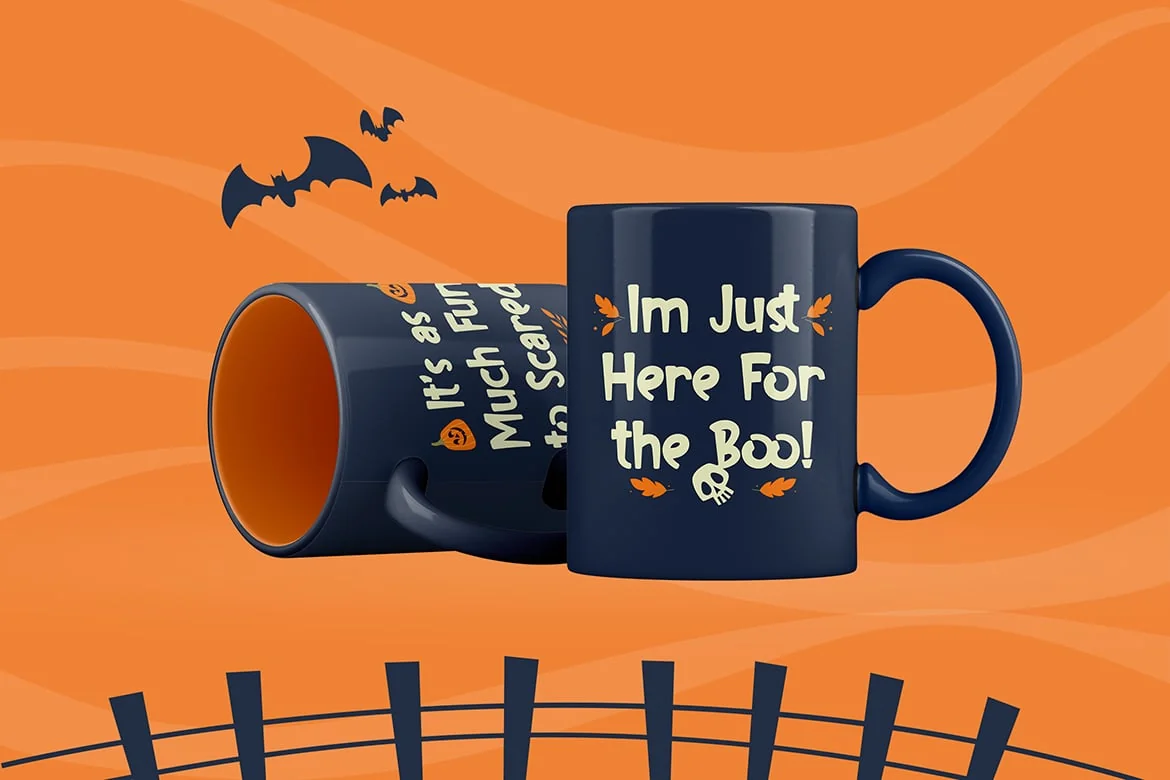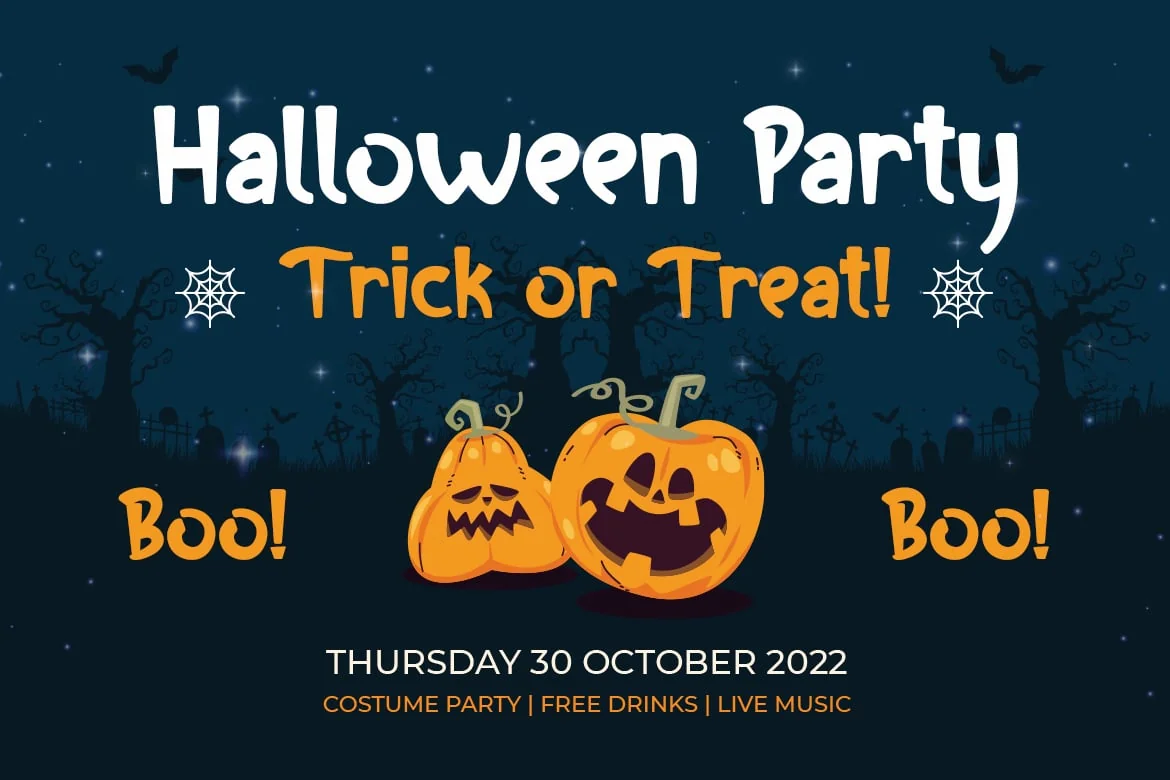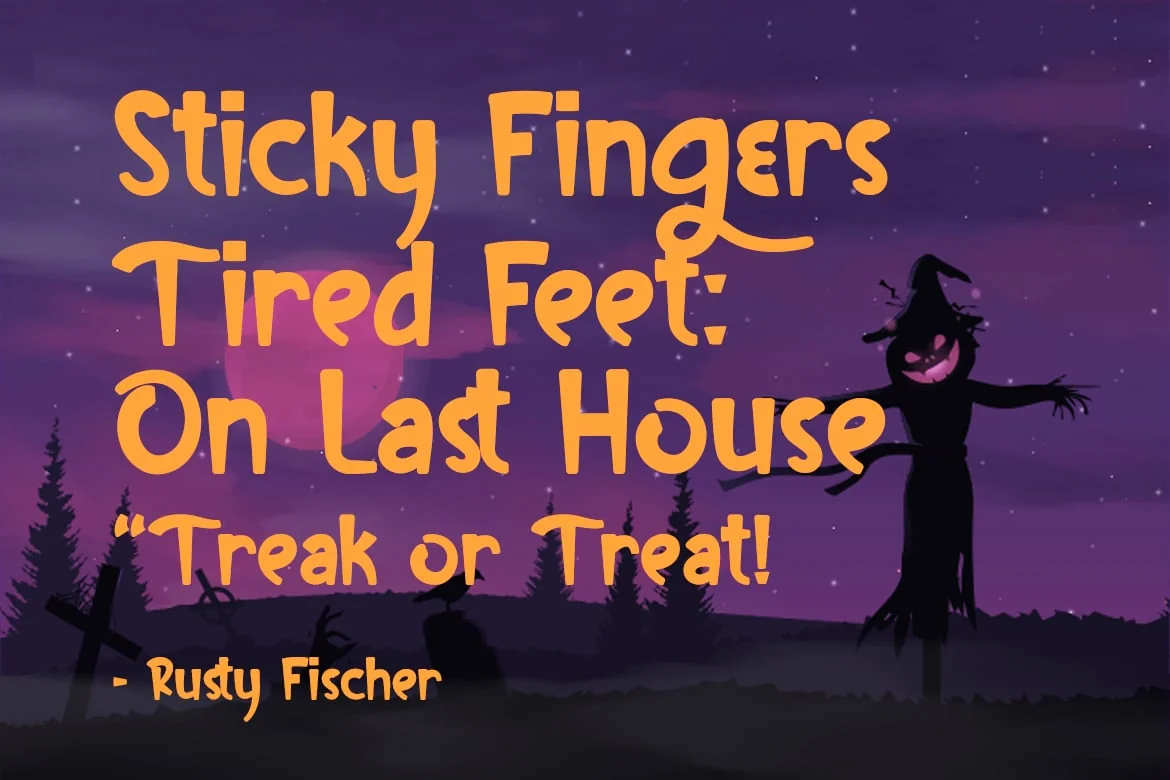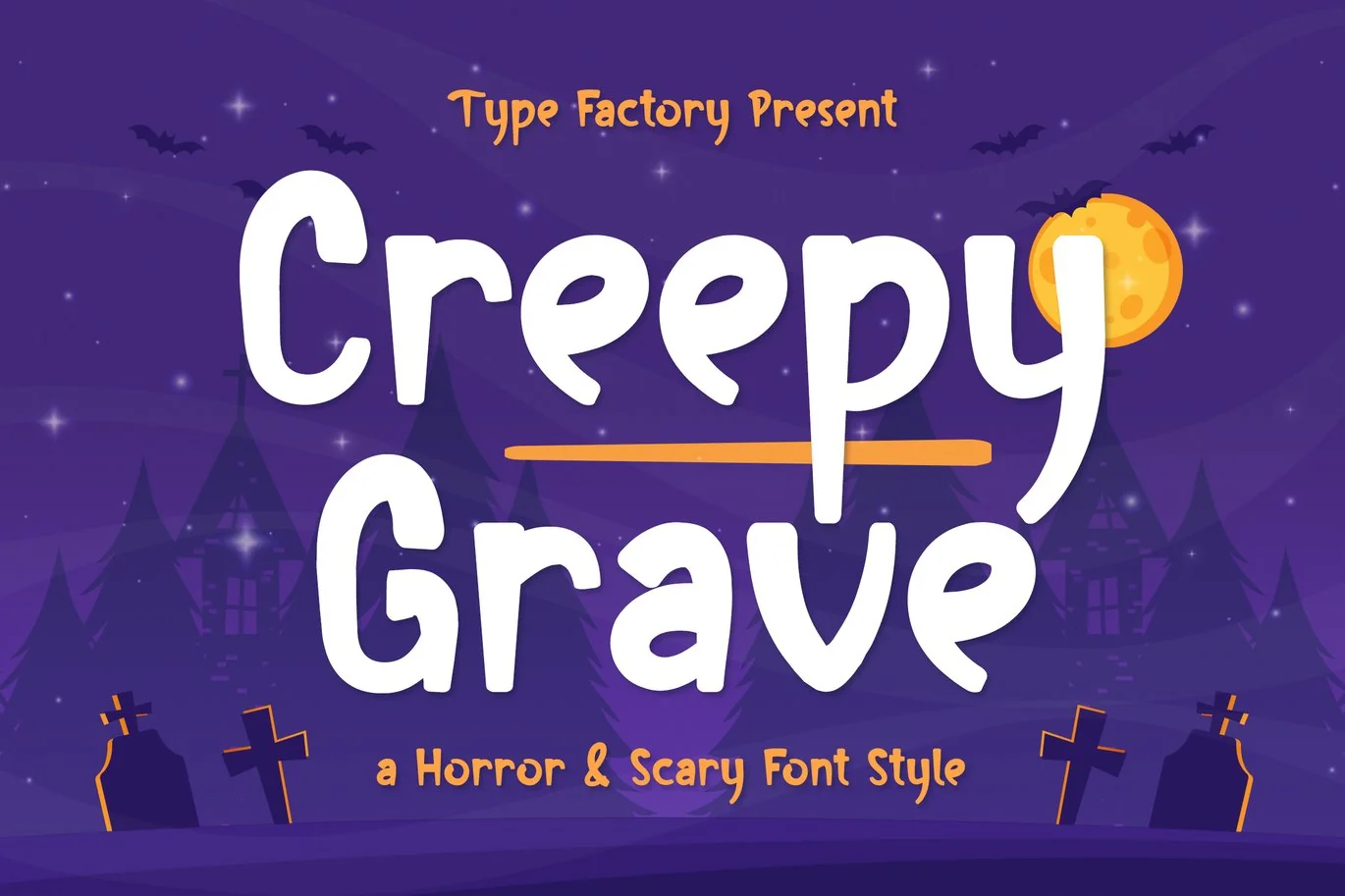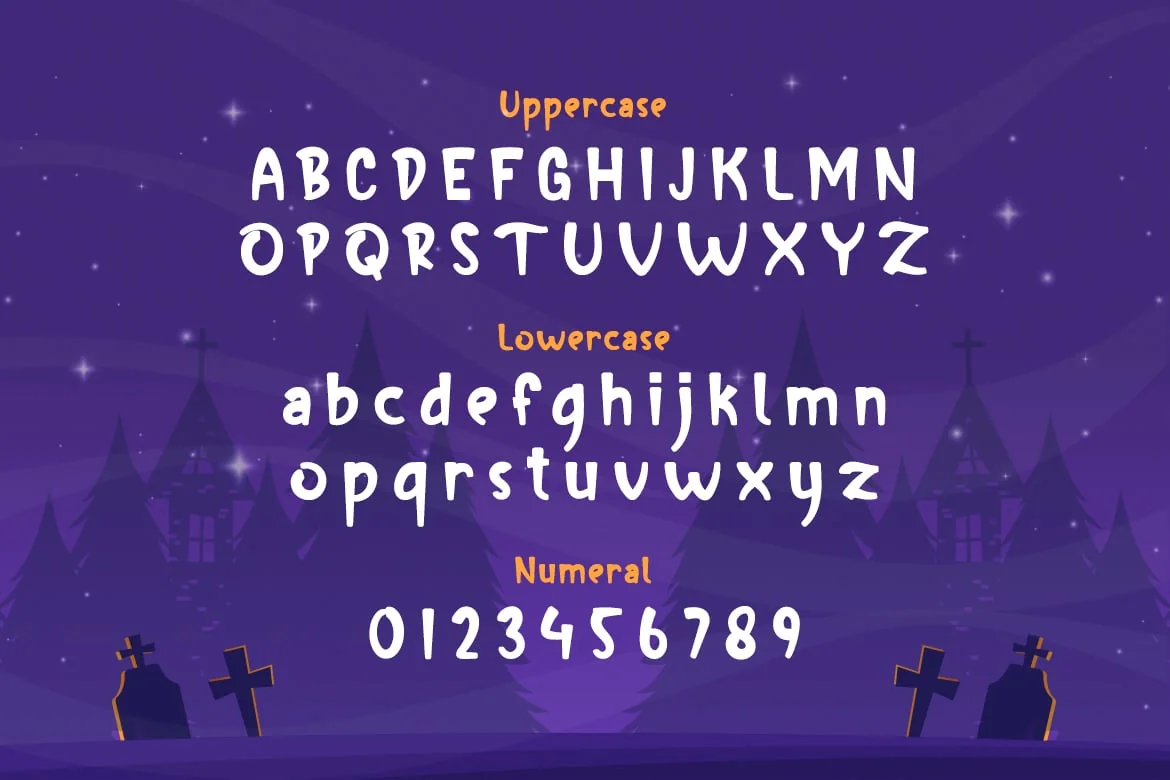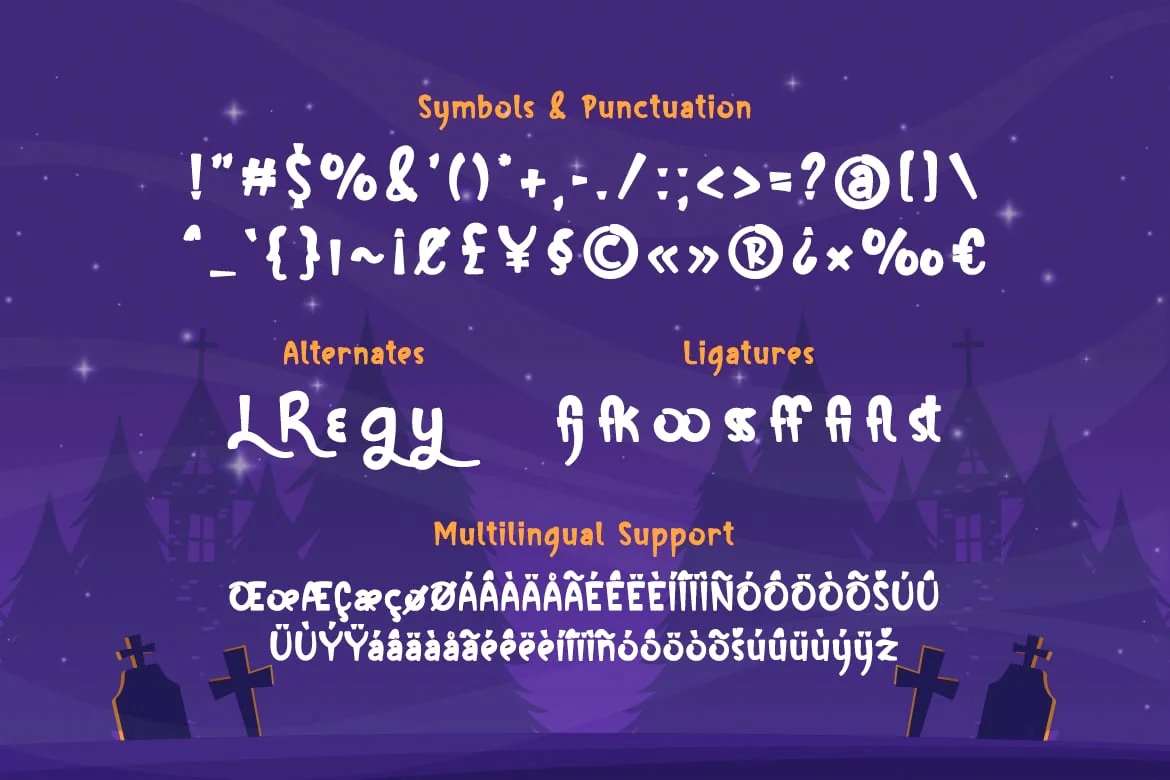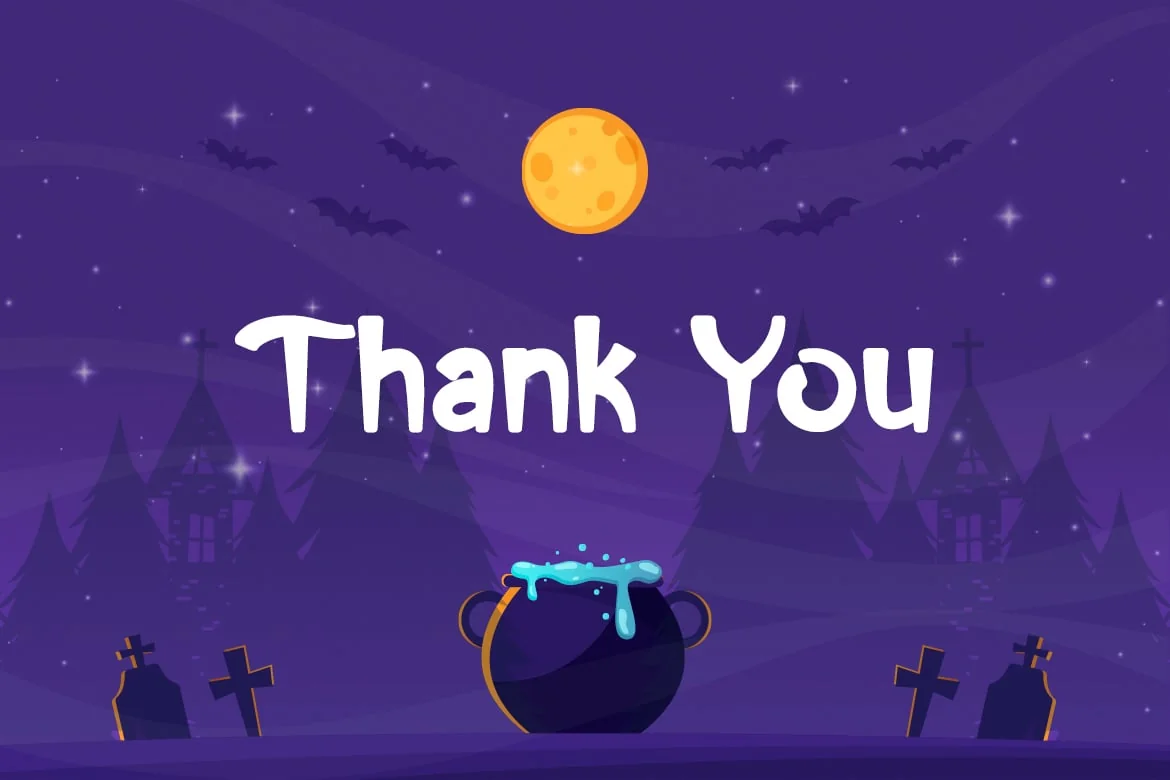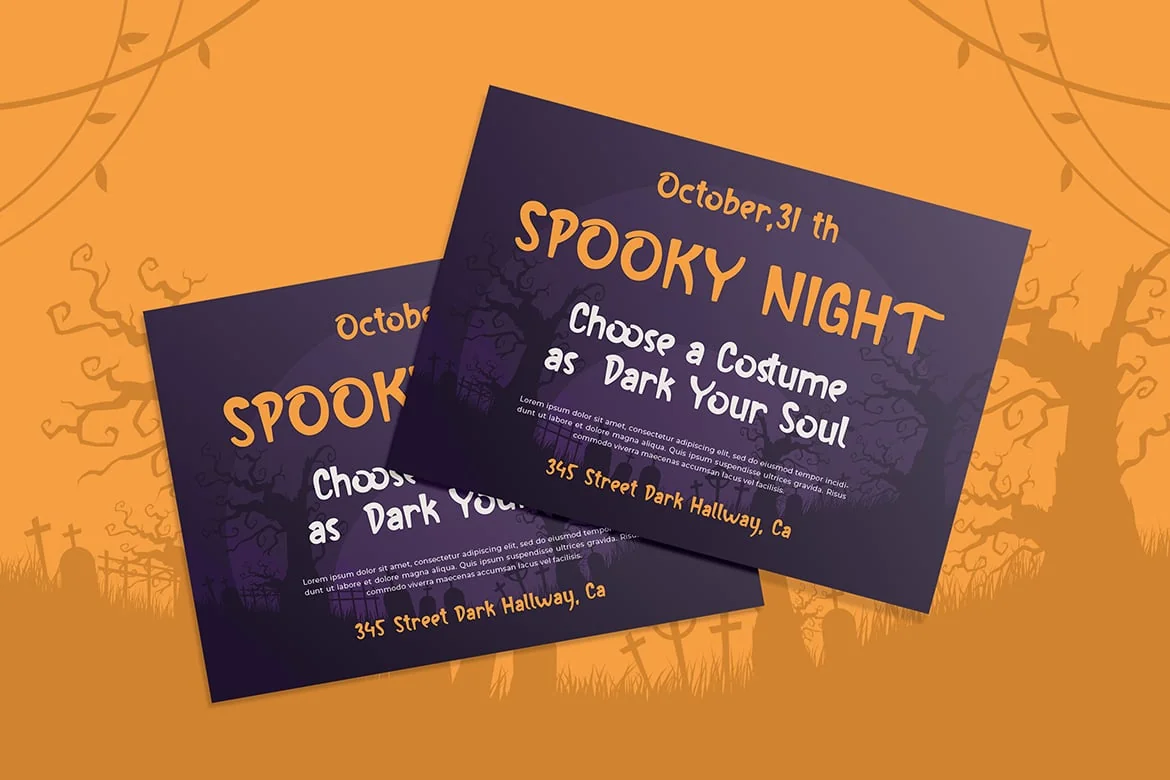
Creepy Grave – A Horror and Scary Font Style
Creepy Grave is an fun, scary, and amazing horror font style.
It will add a unique and stunning look to your designs.
It is perfect for fun fantasy games, children horror story book, logos, branding, advertising, Halloween projects, gothic designs, apparel, tattoos, and more!
- Symbols & Punctuation